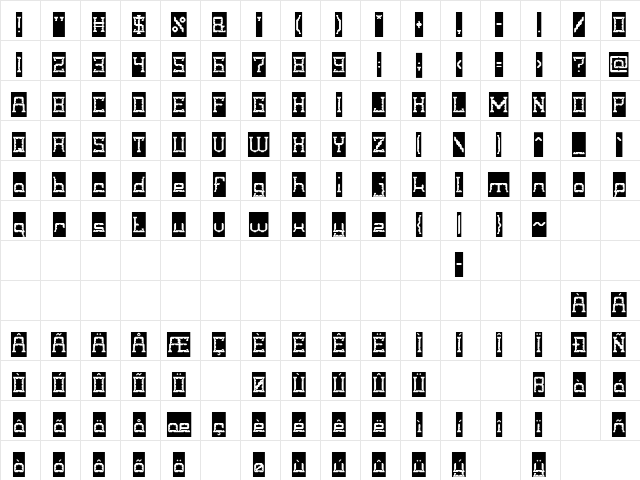
Crystal Soldier-Inverse Regular
Design Context for Crystal Soldier-Inverse Typeface
Crystal Soldier-Inverse draws on military and industrial lettering traditions, with forms that communicate strength and precision.
Designed for tactical branding, military-inspired apparel, action game UI, and utility-focused signage.
Pro Tip: Use Crystal Soldier-Inverse at medium-to-large sizes where its utilitarian structure can be appreciated — the character detail gets lost at small sizes.